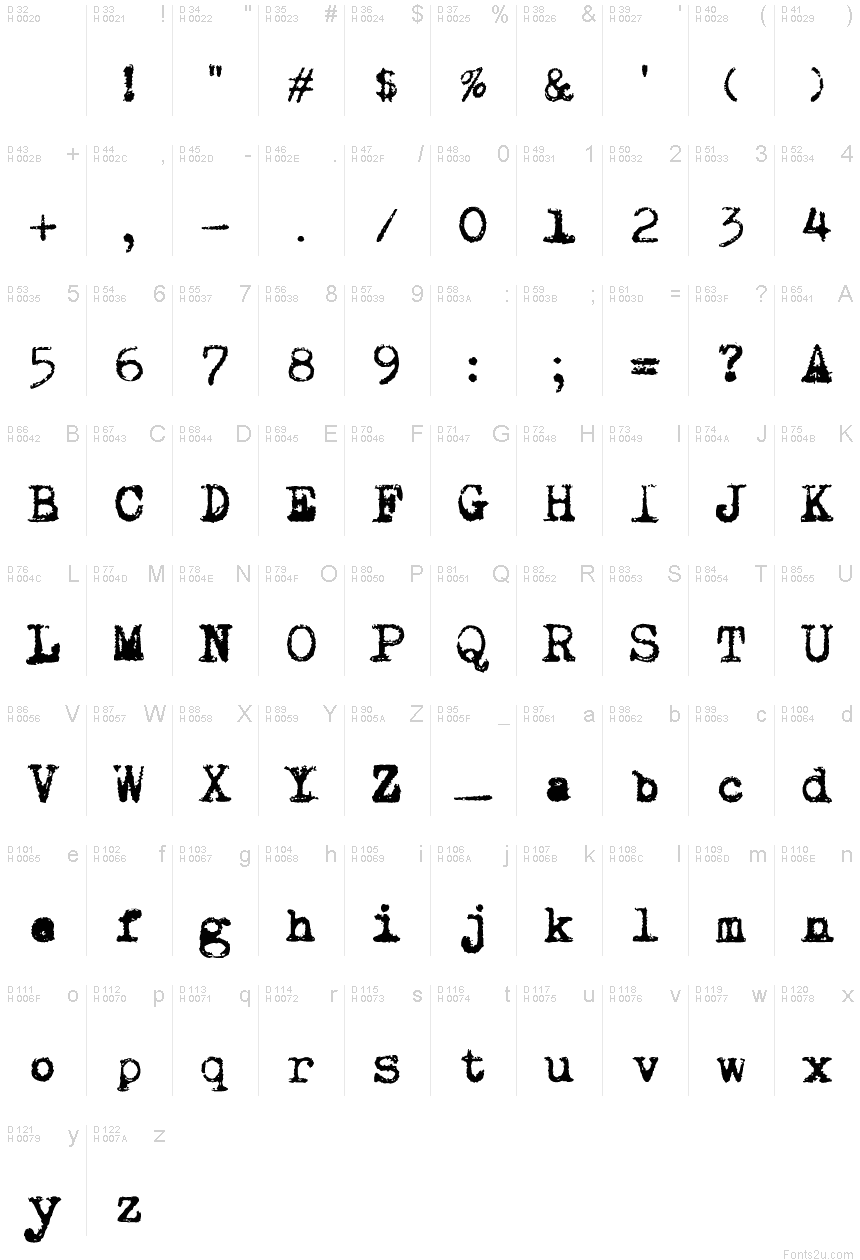
Podgląd czcionki Draconian Typewriter
Draconian Typewriter is a free eroded typewriter display font with ragged, ink-clotted letterforms and an ominous handmade edge. Uneven outlines, torn-looking gaps, and blunt serifs make the characters resemble damaged impressions from a worn ribbon rather than clean mechanical typing.
Horror and dark fantasy are its clearest territory, especially for film posters, game graphics, and book covers that need lettering with a decayed physical texture. It also fits Halloween event material, where the broken strokes can echo distressed props, scorched paper, and shadowy illustration.